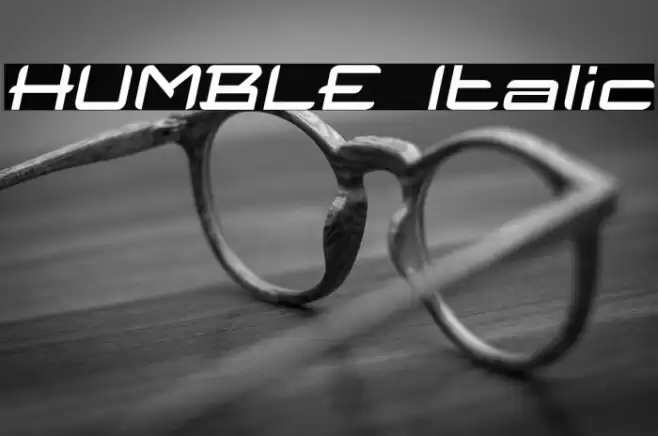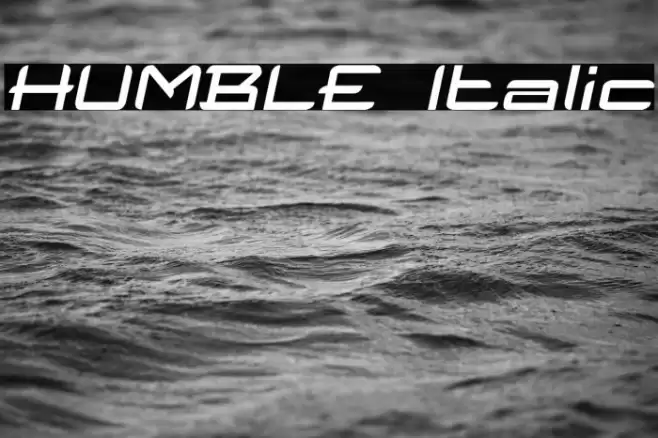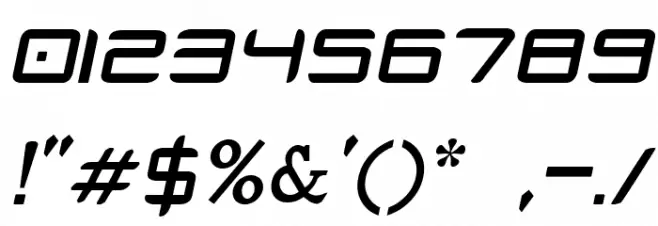
HUMBLE Italic Font
HUMBLE Italic Description
This font features a sleek, modern design with a distinct italic slant, giving it a dynamic and forward-moving appearance. The characters are crafted with a geometric precision, featuring clean lines and sharp angles that convey a sense of speed and efficiency. The uppercase and lowercase letters maintain a consistent style, while the numerals and special characters are designed to complement the overall aesthetic. The font's futuristic appeal makes it suitable for projects that require a contemporary and innovative look.
A sleek, modern italic font with geometric precision and a futuristic appeal from Uncategorized fonts.
- Proposed Projects: Ideal for technology branding, sports team logos, automotive advertisements, and modern web design.
- Use Case: Logos, Headlines, Branding